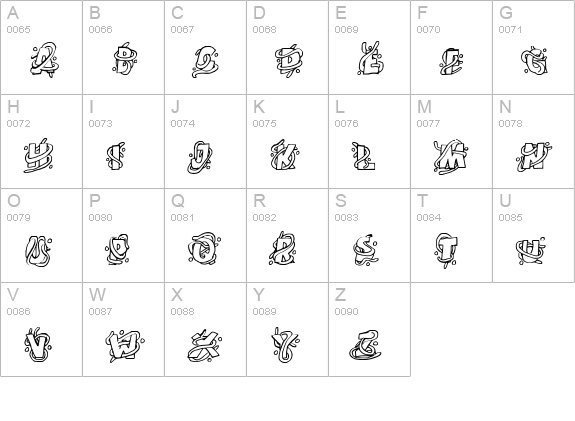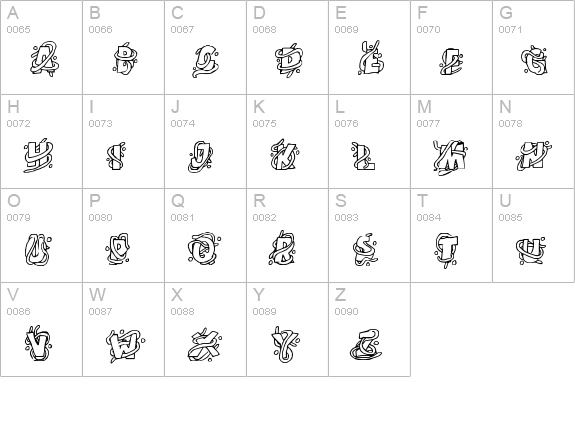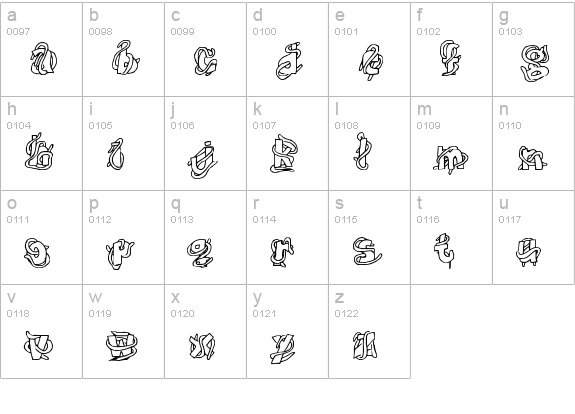
The Worms Font Details
Introducing The Worms font, a captivating typeface that is sure to add a touch of whimsy and playfulness to any project. With its unique, organic shapes and quirky letterforms, The Worms font is perfect for those seeking a font that breaks away from the traditional and embraces a more unconventional aesthetic. This font's distinctive design draws inspiration from the sinuous, curving forms of worms, giving it a charming and dynamic appearance. Each letter is carefully crafted to mimic the fluid movement of these creatures, resulting in a font that exudes a sense of liveliness and motion. Whether used for headlines, logos, or any other creative endeavor, The Worms font is bound to catch the eye and leave a lasting impression. One of the best features of The Worms font is that it is absolutely free. Yes, you read that right! This captivating typeface is freely available to download at FontsMarket.com. You can now enhance your designs without having to spend a dime, making it an ideal choice for budget-conscious designers, students, or anyone who simply appreciates a fantastic deal. So, what are you waiting for? Dive into the world of The Worms font and let your imagination run wild. Experiment with different sizes, colors, and compositions to create captivating designs that truly stand out. Download The Worms font today from FontsMarket.com and unleash your creativity like never before.